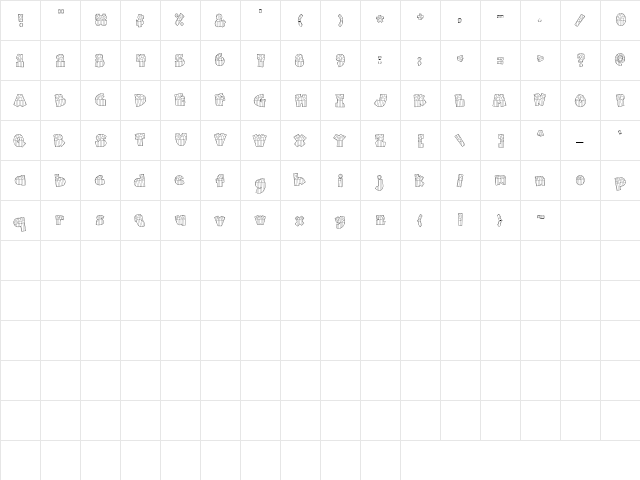
Doodle American Regular
Design Context for Doodle American Typeface
Doodle American is a composed and adaptable typeface that performs quietly and consistently across a wide range of design contexts.